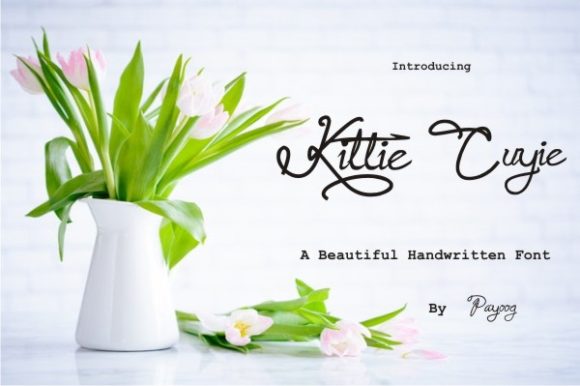
Kittie Cuyie Font
About Kittie Cuyie Font
The Kittie Cuyie is a new, modern and fresh script. It has a stylish handwritten touch with an elegant and natural style.
It’s great for branding projects, wedding designs, logos, photography, watermarks, and much more!